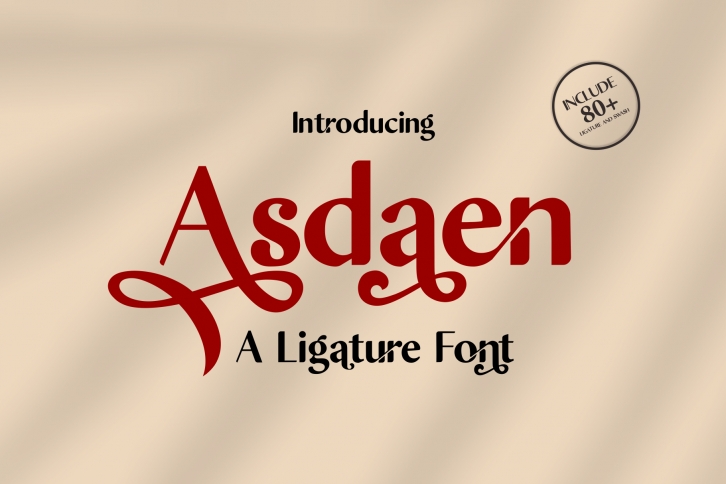
Asdaen Ligature is a trendy and unique font with an authentic style. It was designed by Malindo Creative and it's a great choice for creative people who need such a font. It was released on January 13, 2020 and the file size is 19.54 MB. Asdaen Ligature will add an organic vibe to any design idea!